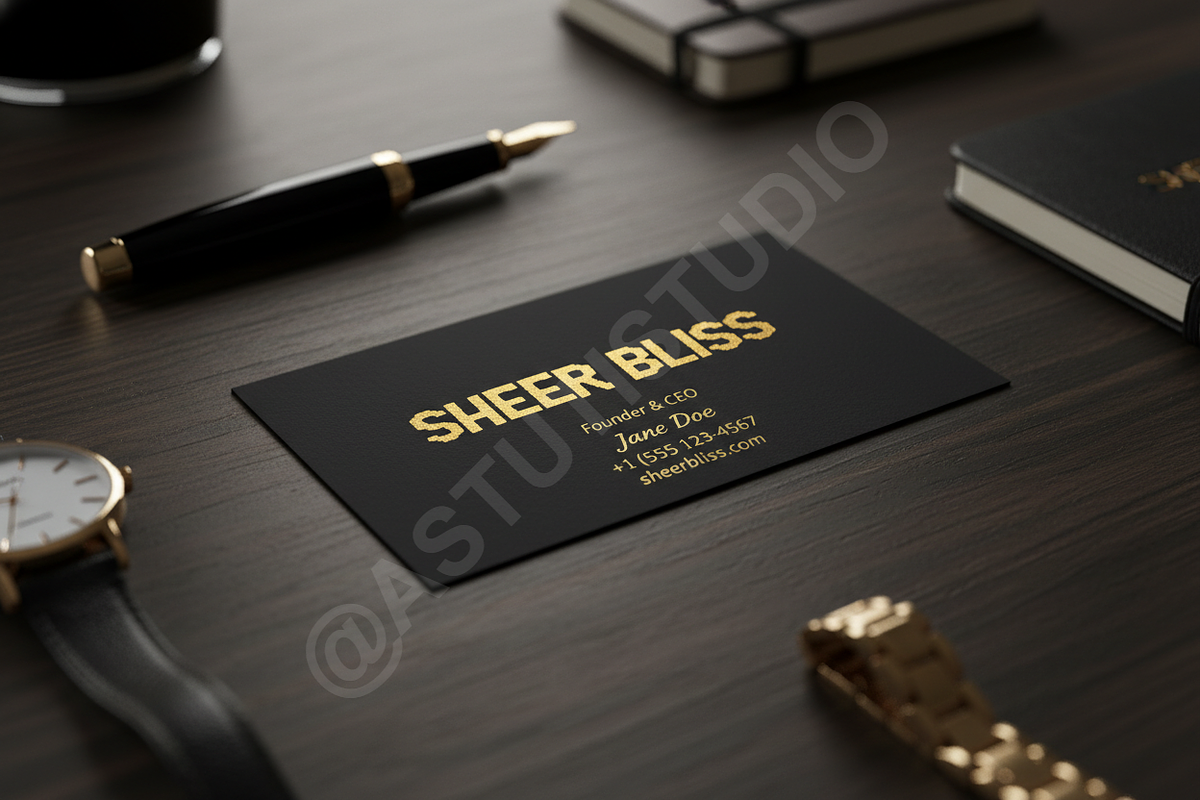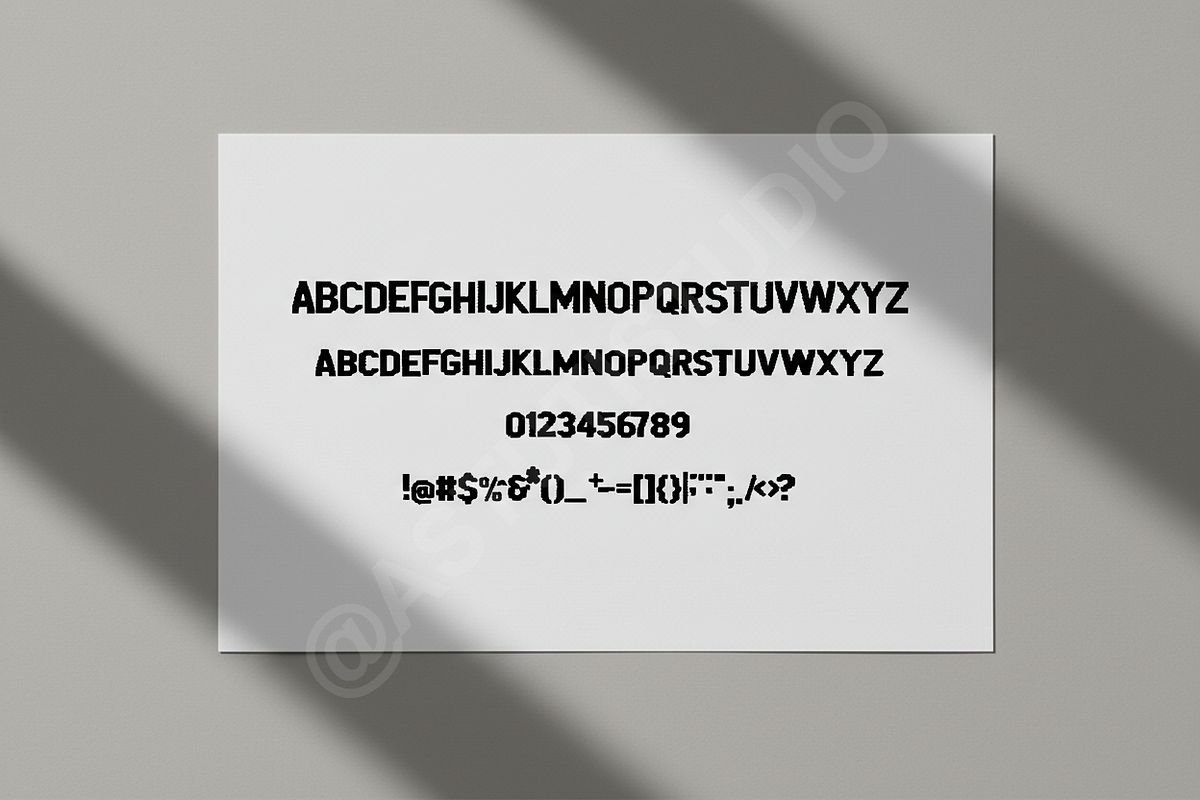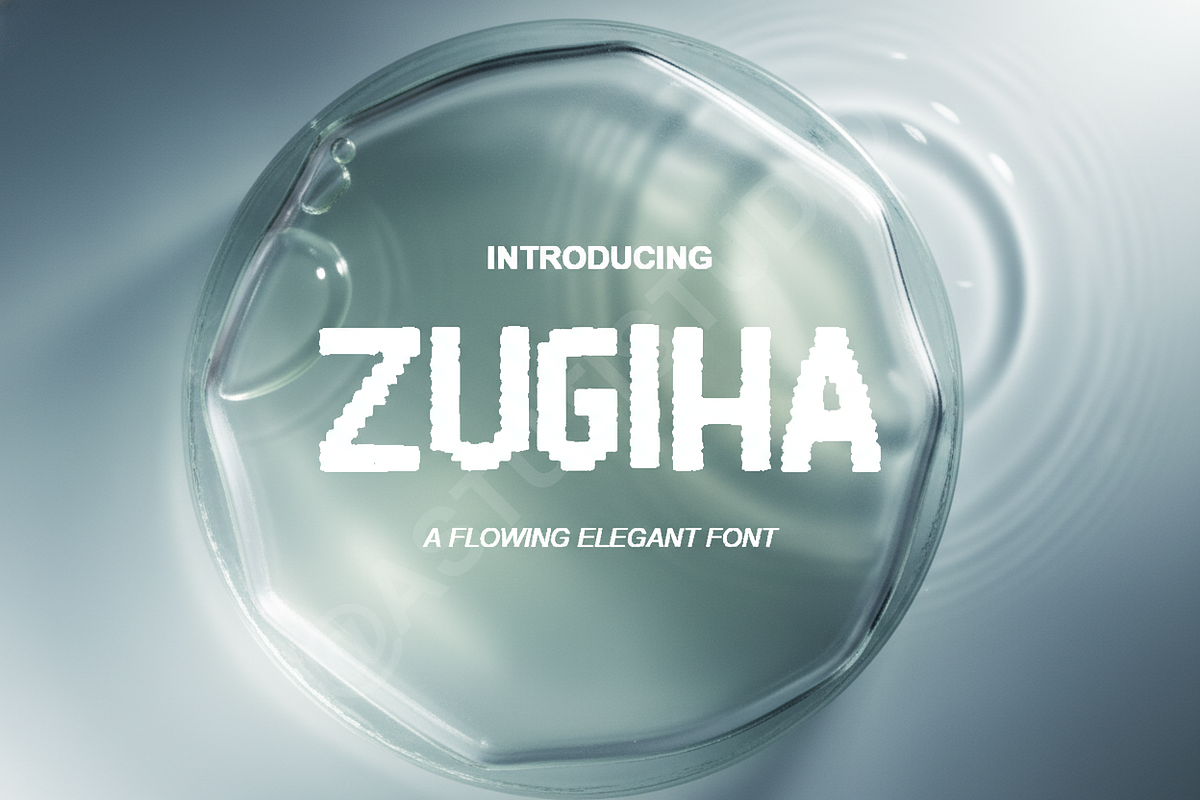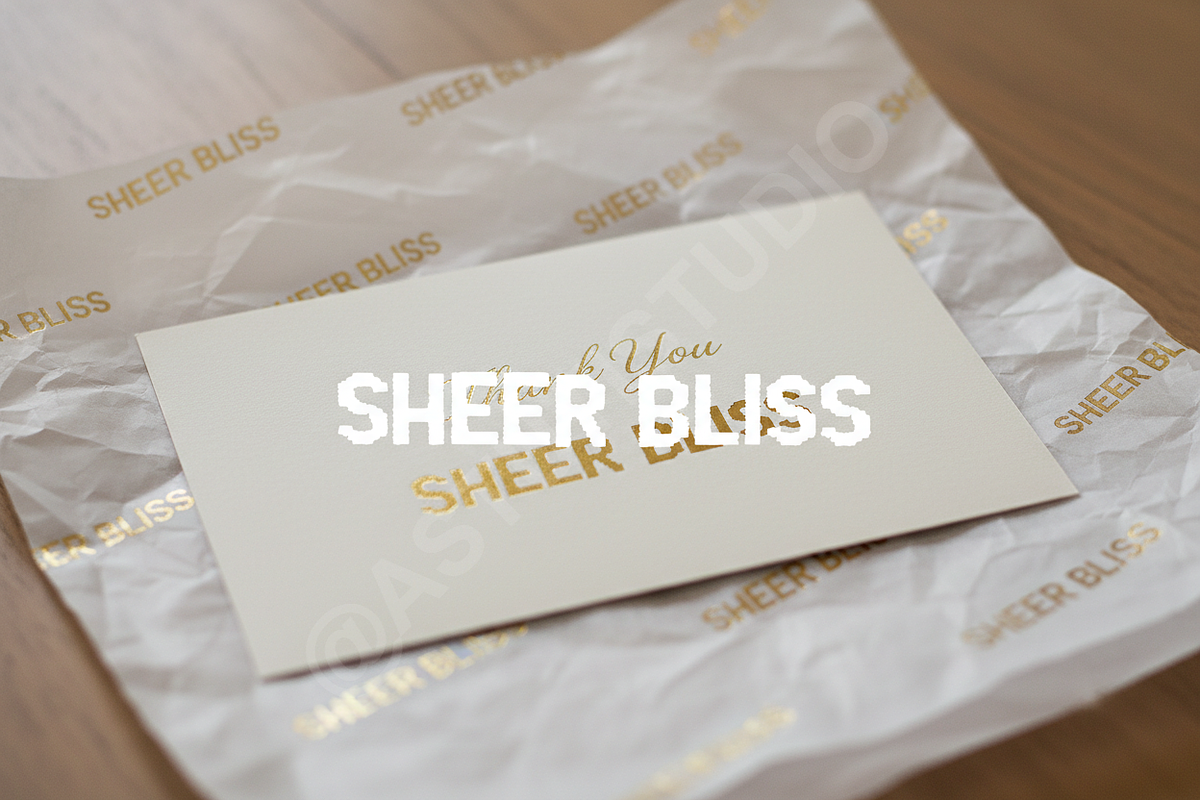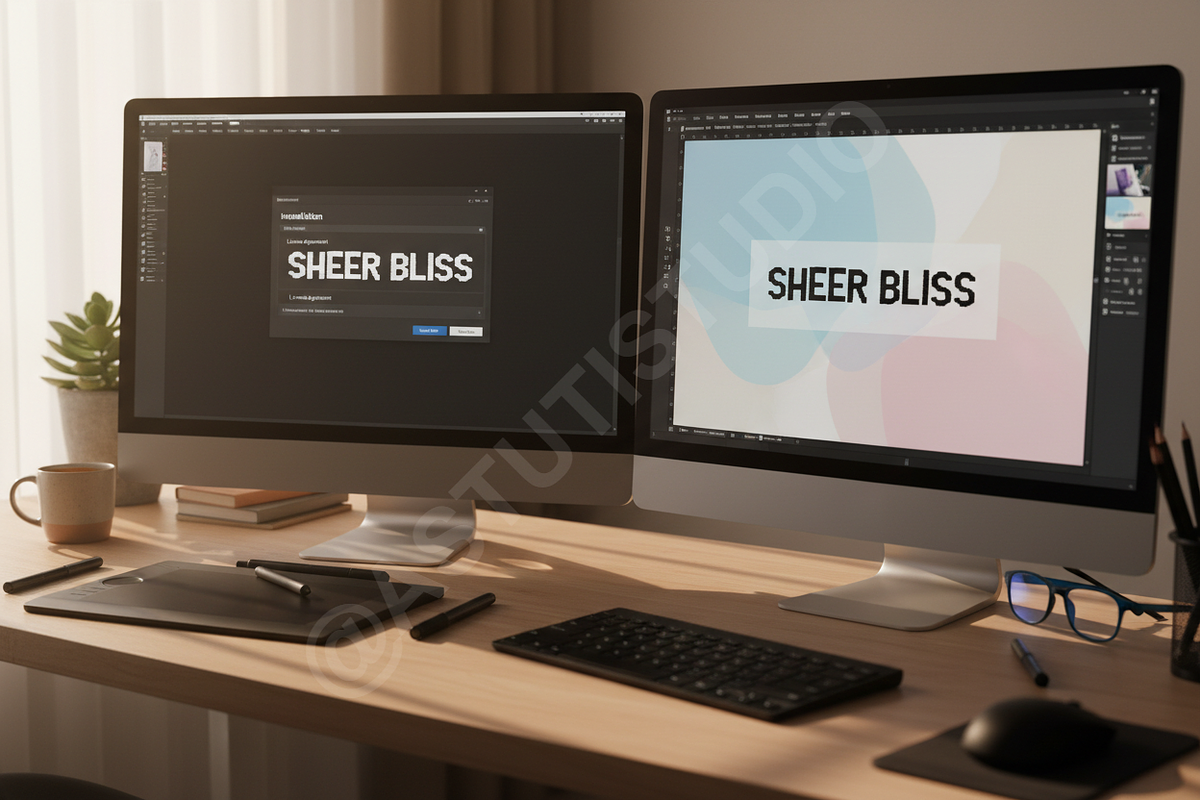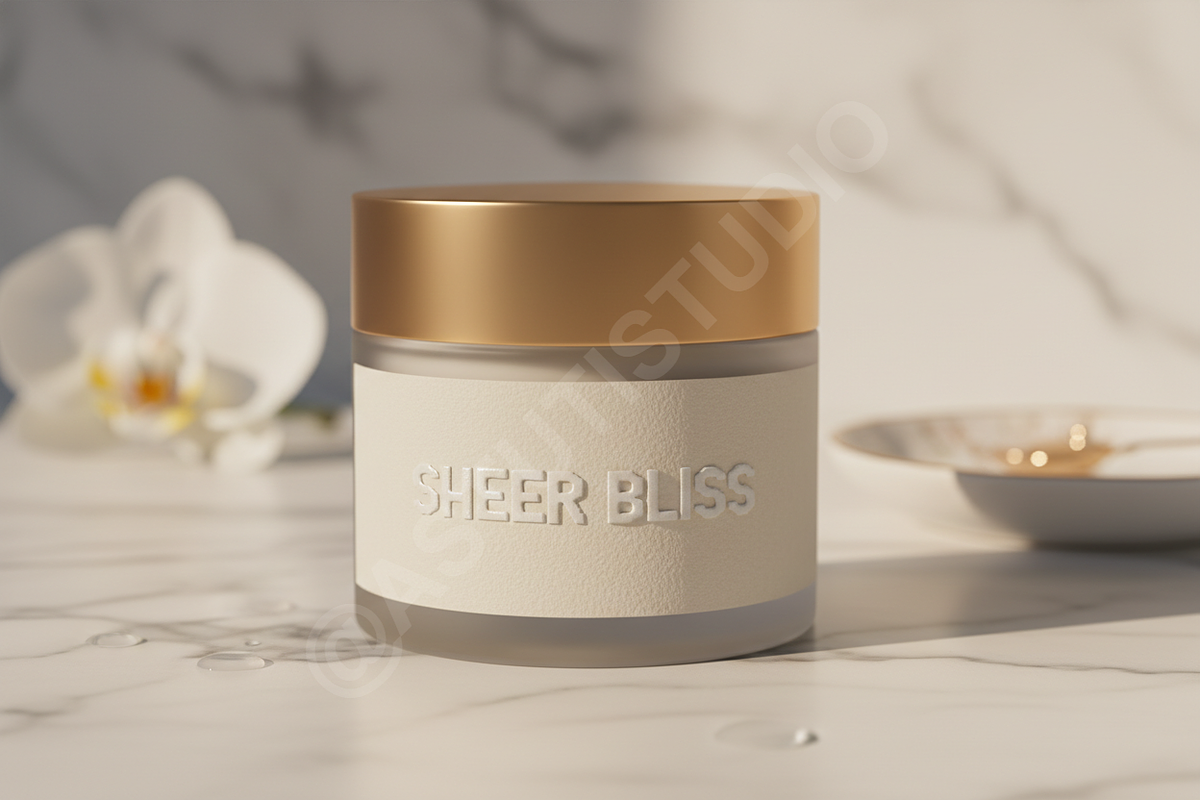
Zujiha - The Elegant Modern Serif Fo
Zujiha is a sophisticated and highly versatile modern serif typeface designed for the discerning creative professional. It balances classic structure with contemporary fluidity, offering an elegant visual voice that elevates any project. Perfect for high-end luxury branding, impactful editorial layouts, and polished social media presence, Zujiha provides the perfect blend of timeless charm and modern precision.
=== Features & Versatility ===
- Refined Proportions: Optimized for both large display settings and body text.
- Extensive Ligatures & Alternates: Over 100 stylistic glyphs to customize your unique look, adding a bespoke feel to headlines.
- Multilingual Support: Comprehensive coverage for Western, Central, and Eastern European languages.
- Punctuation and Numerals: Carefully crafted for consistency and readability across all weights.
- PBR Ready: Print-Based Resolution readiness for crisp output in magazines and print collateral.